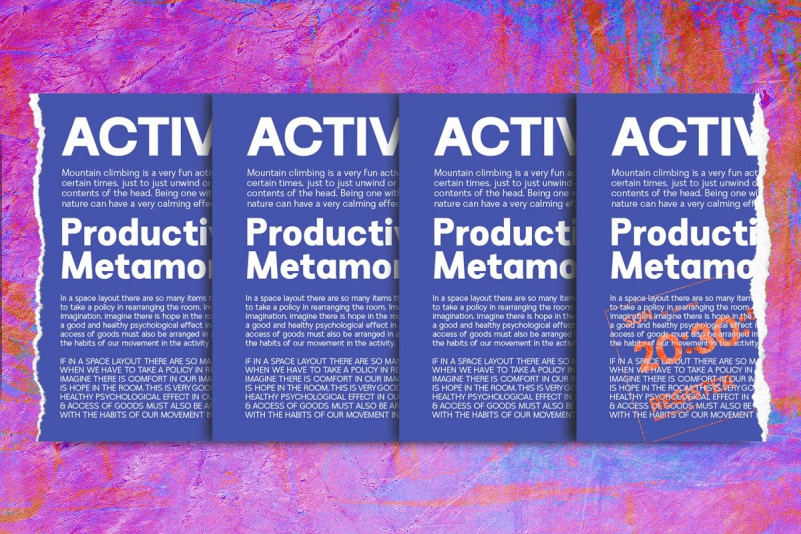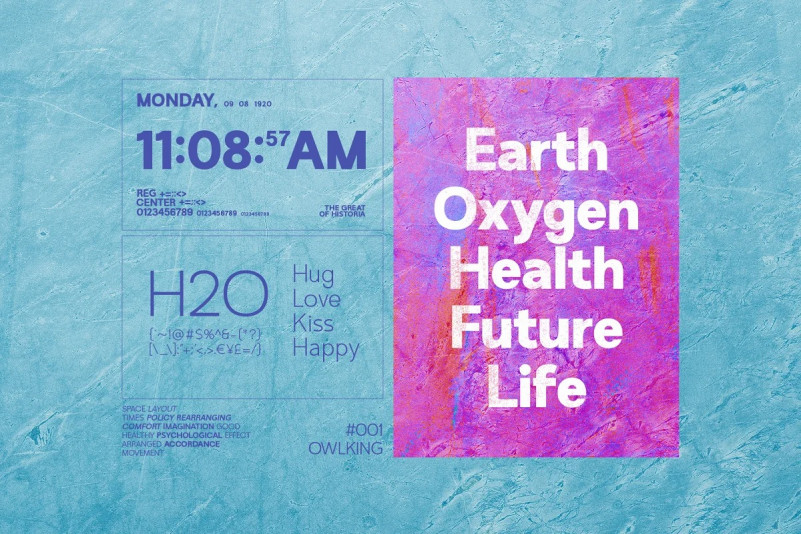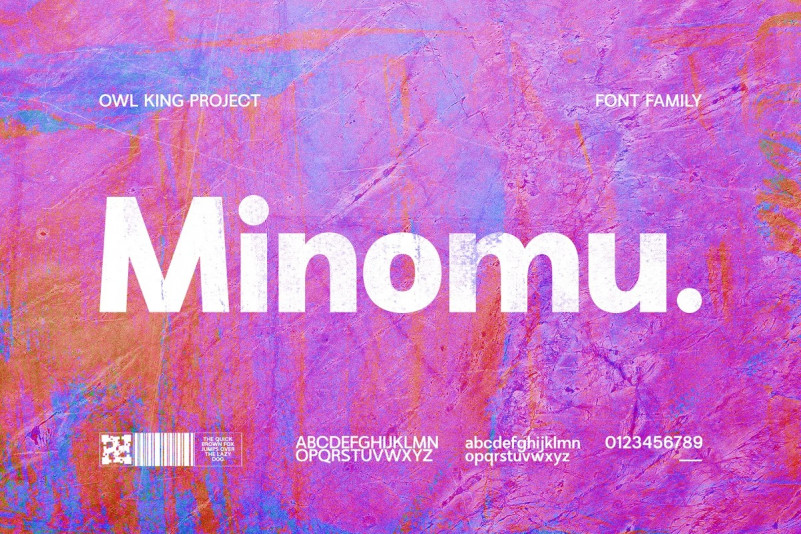
Minomu & Rollbox Font
Say hello to Minomu Sans Serif Font, Minomu puts more emphasis on making bold fonts, works well if it looks like it gives a lot of space, not only by carrying 20 weight, Minomu can also be used as text for more detailed descriptions, Minomu also supports several languages.
For making a logo that has a modern impression based on the Minomu font, you can rely on it.
several alternative letters such as y’ M’ & a’ are already available in each thick and thin family.